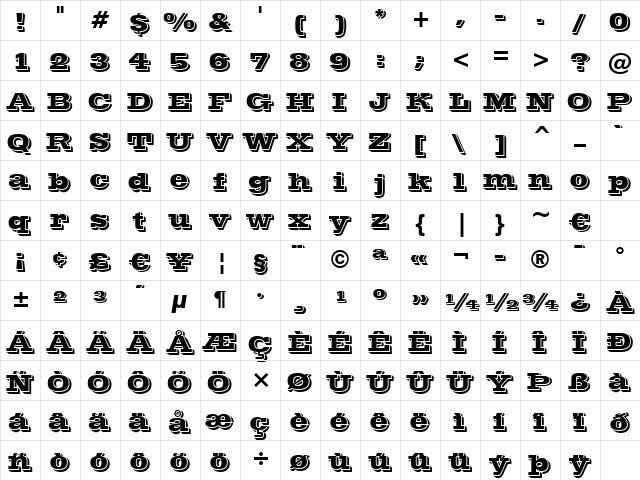
Vineta BT Regular
Vineta BT Family
Vineta BT Regular
Complete Vineta BT Regular glyph index. Displaying only characters natively supported by Vineta BT Regular font.
Design Context for Vineta BT
Vineta BT is a composed and adaptable typeface that performs quietly and consistently across a wide range of design contexts.